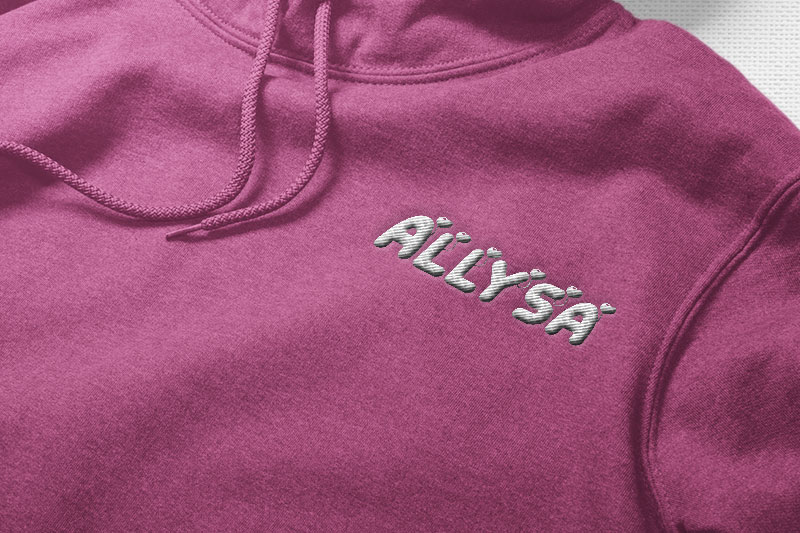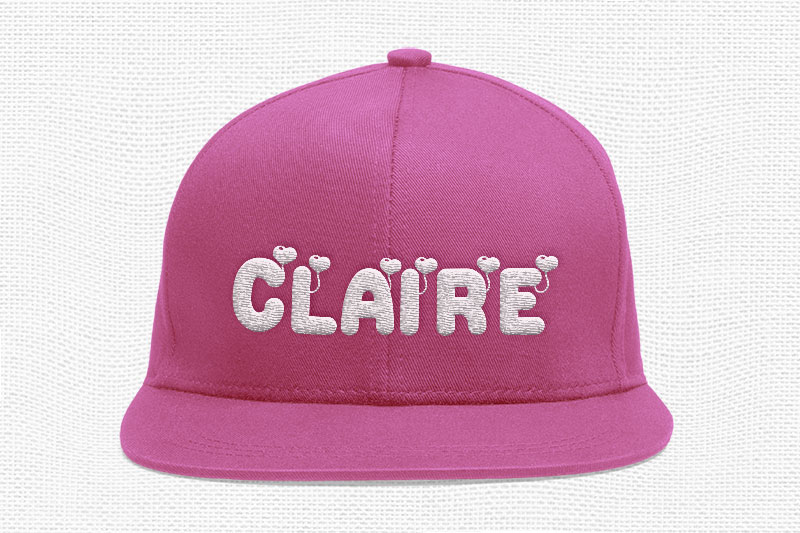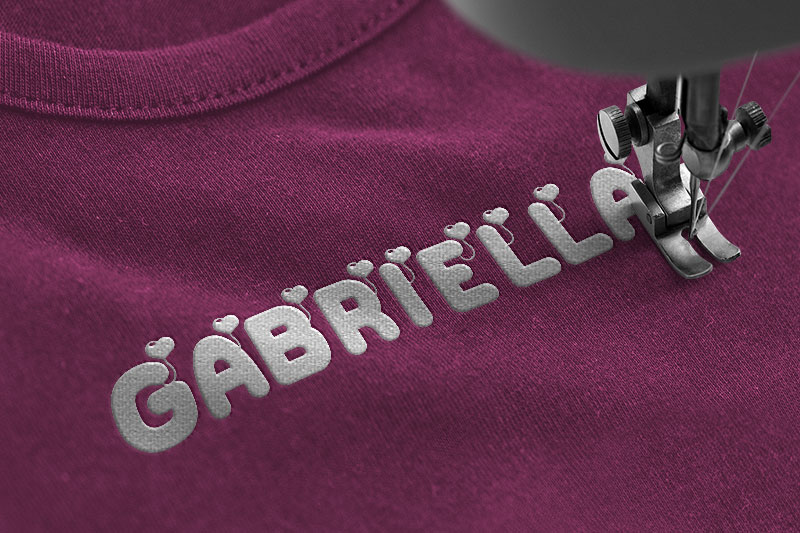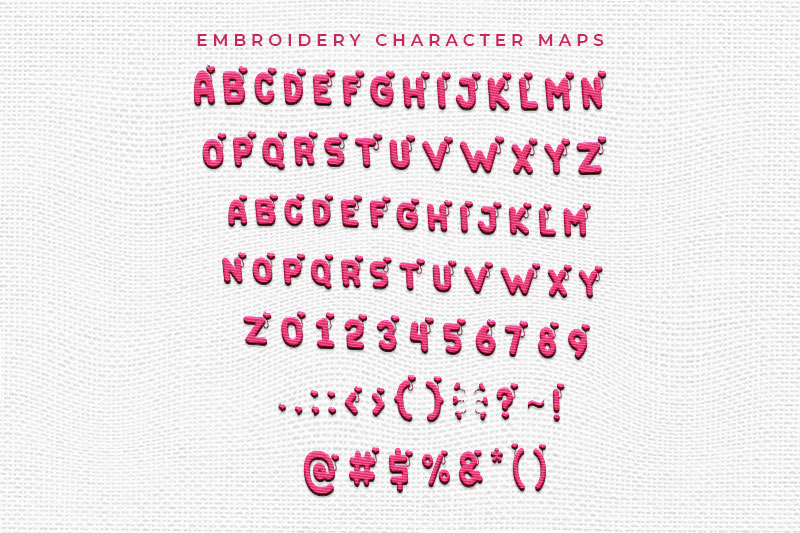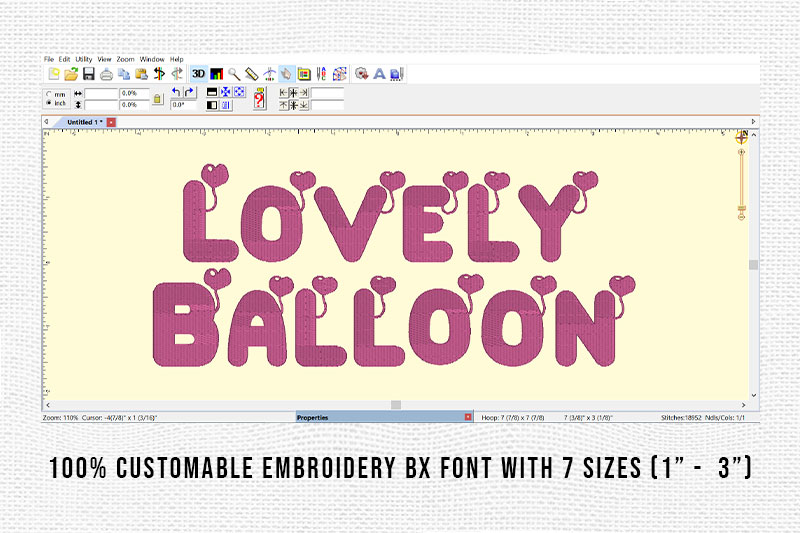
Lovely Balloon Embroidery Font was created to present a simple and cute impression to anyone who sees it. This is in line with the characteristics of clean, slightly inflated, and cute letters. Each letter can be distinguished easily. People who read texts using this typeface don't have to try hard to read and understand them.
As the name implies, Lovely Balloon Embroidery Font is perfect for use as a children's equipment, such as clothing item designs. This is because of its simple and cute shape. This type of font can be printed in small or large sizes and still looks good up close or from a distance.
For people who like simplicity and do not like the appearance of a busy design, Lovely Balloon Embroidery Font will be a good choice. This font is also suitable for use as a embroidery font, such as in a T-shirt, jacket, and hat.